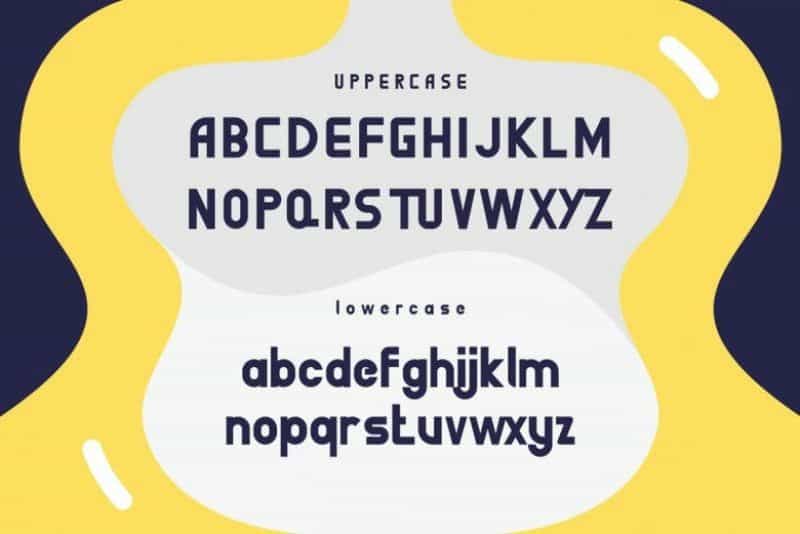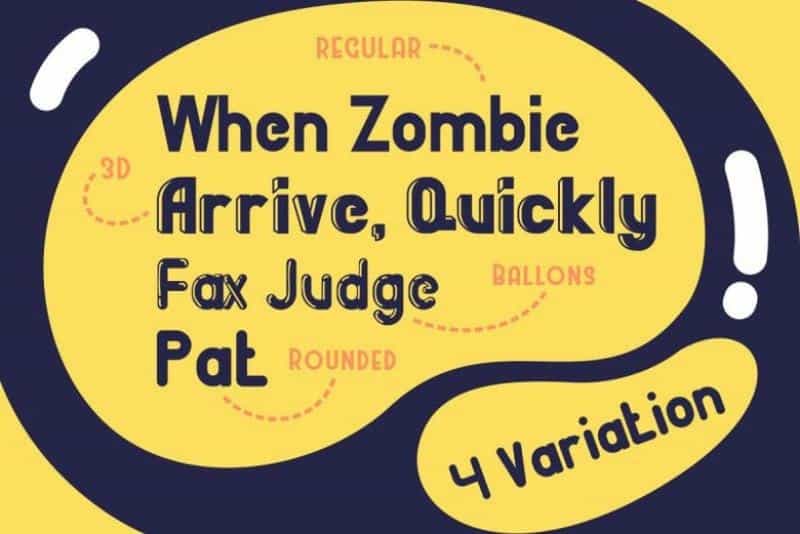
Introducing our newest font : BigBOBY Typeface! This is a brand new modern sans serif in comic fun style font. It is a new, chic, fun and stylish glyph. It has 4 styles : normalized, 3D, circular, and balloons.